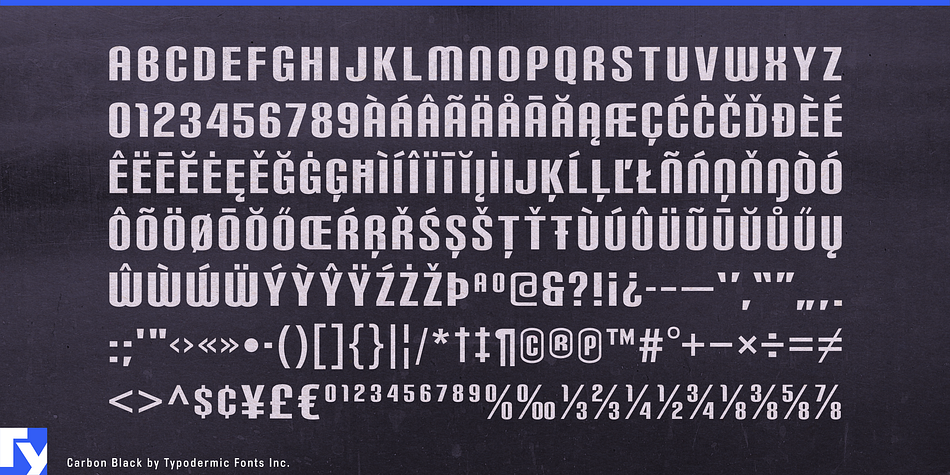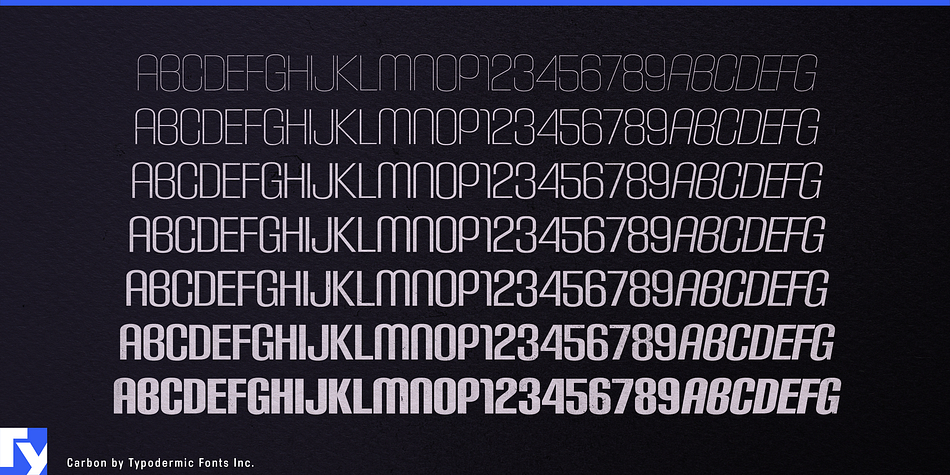
CARBON
Carbon is a display sans font family. This typeface has sixteen styles and was published by Typodermic Fonts Inc.
Carbon, the brutalist unicase typeface, boasts a refined modularity that is perfect for creating bold headlines. Its capsule forms make for a unique design element that will draw attention to any layout. Since the year 2000, graphic designers have been relying on Carbon to bring a strong visual impact to their work.
This typeface is not just visually stunning, but it’s also highly versatile. Carbon comes in seven different weights, making it easy to adapt to any design need. It even includes italics for added variety. But what truly sets Carbon apart are the two special effect styles that allow designers to create truly distinctive designs.
Carbon is not just a typeface, but a tool that designers can use to create memorable designs. Whether you’re designing for print or digital media, Carbon is the perfect choice for bringing your vision to life. With its unique features and versatility, it’s no wonder that Carbon has been a mainstay in graphic designers’ toolboxes for decades.